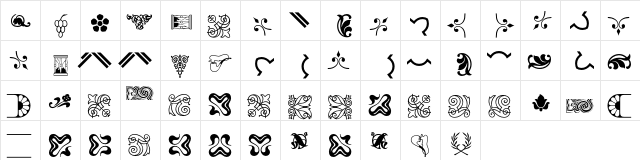
BordersOrnament 3 Regular
Design Context for BordersOrnament 3 Typeface
BordersOrnament 3 is built around its visual character rather than neutral utility — its distinctive forms are designed to make an impression at display sizes.
Font Pairing: Pair with a clean neutral sans-serif for body copy to let BordersOrnament 3's character lead without overwhelming the composition.
Pro Tip: Treat BordersOrnament 3 as the centrepiece of your typographic hierarchy. One strong heading set in a decorative face can carry an entire layout.